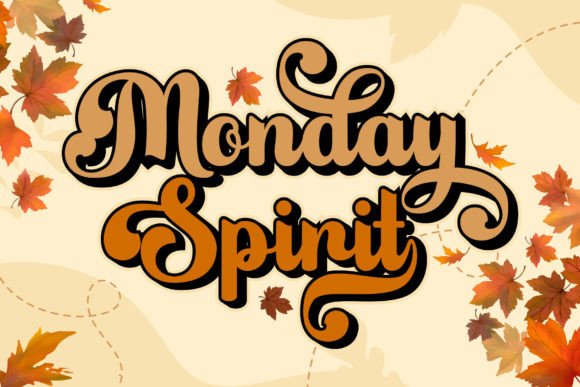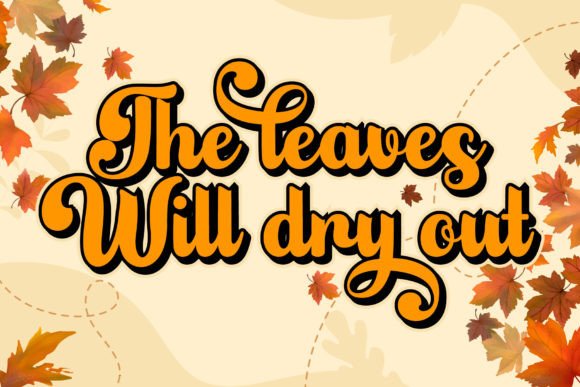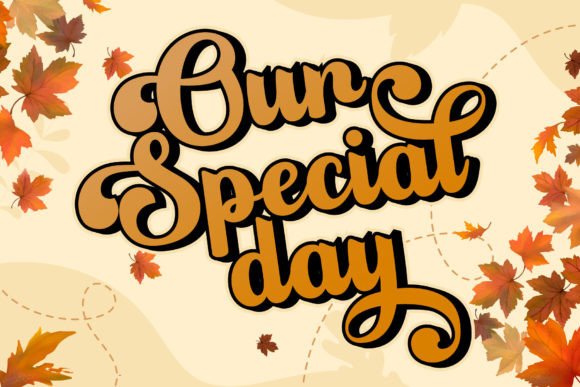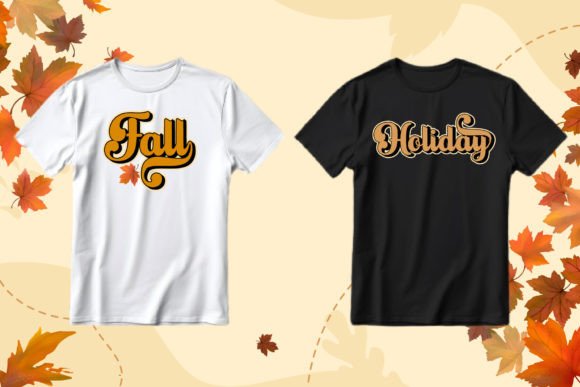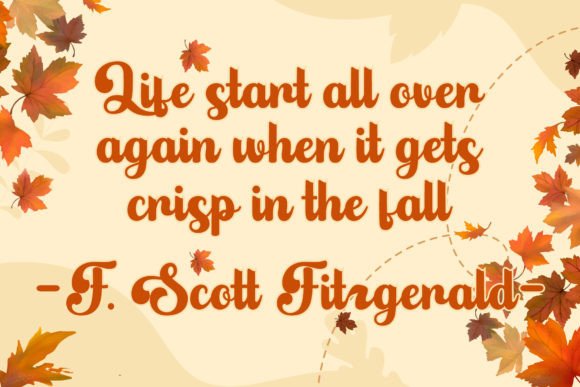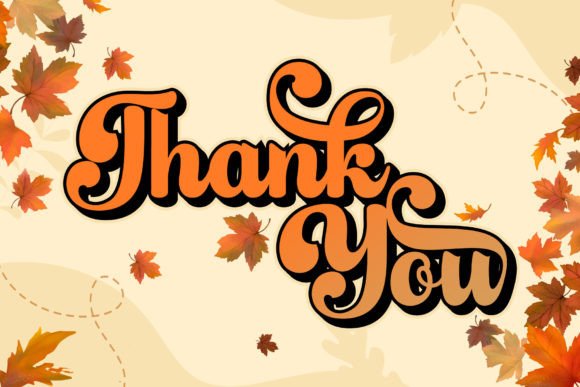
Introducing Autumn Time Font: Elevate Your Designs with Elegance
As the seasons change and autumn arrives, designers and crafters are on the lookout for fonts that capture the essence of this beautiful time of year. If you’re searching for a font that embodies the elegance and sophistication of autumn, look no further than Autumn Time Font. This stunning font is designed to bring a touch of class and uniqueness to your designs, making it perfect for a wide range of projects.
What is Autumn Time Font?
Autumn Time Font is a beautifully crafted font that takes inspiration from the autumn season. With its modern and elegant design, this font is sure to make your designs stand out. Its unique and classy look makes it an excellent choice for designers and crafters who want to add a touch of sophistication to their work.
Key Features of Autumn Time Font
- PUA Encoded: Autumn Time Font is PUA encoded, which means you can easily access all the glyphs and swashes, giving you maximum flexibility and creative control.
- Classy and Unique Design: The font boasts a modern and elegant design that is sure to elevate your designs and make them stand out.
- Multipurpose: Autumn Time Font can be used for a wide range of projects, including logos, branding, invitations, stationery, wedding designs, greetings cards, social media posts, and much more.
Autumn Time Font is an excellent choice for designers and crafters who want to add a touch of elegance and sophistication to their work. Whether you’re creating:
- Logos and Branding: Use Autumn Time Font to create a lasting impression with a unique and memorable logo.
- Invitations and Stationery: Add a touch of elegance to your invitations, greeting cards, and stationery with this beautiful font.
- Wedding Designs: Make your wedding designs truly special with the sophisticated and romantic look of Autumn Time Font.
- Social Media Posts: Elevate your social media posts with a font that is sure to grab attention and leave a lasting impression.
Why Choose Autumn Time Font?
With so many fonts available, why choose Autumn Time Font? Here are just a few reasons:
- Unique and Exclusive: Autumn Time Font offers a unique and exclusive design that will make your work stand out from the crowd.
- Ease of Use: The PUA encoding makes it easy to access all the glyphs and swashes, giving you maximum creative control.
- Multipurpose: This font can be used for a wide range of projects, making it an excellent addition to your font library.